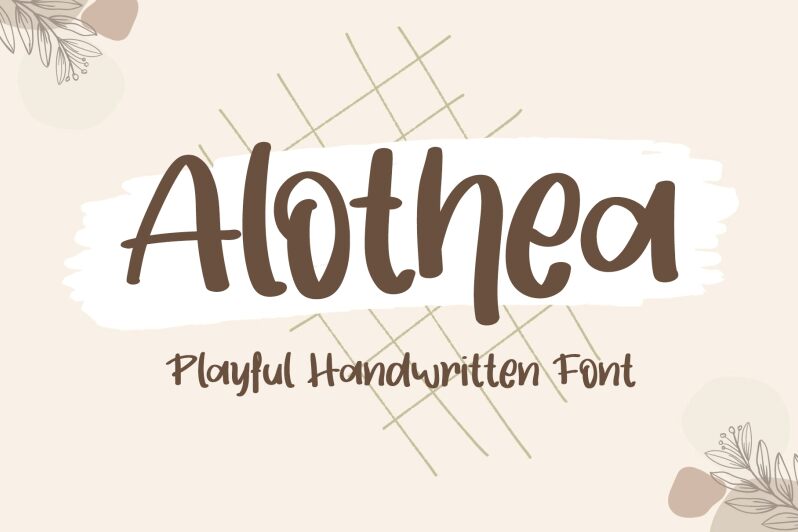
Alothea Regular
Alothea, a whimsical creation by Letterafa Studio, is the perfect font to add a touch of playfulness to your projects. With its handwritten style, this font brings a unique charm that is suitable for various creative endeavors. Craft vibrant party invitations or design eye-catching social media graphics with Alothea's playful curves and fluid strokes. Create captivating children's book illustrations or design colorful logos that exude imagination and creativity. Whether you're working on a joyful branding project or need to infuse fun into your designs, Alothea is the ideal font choice for adding a dose of cheer and character.